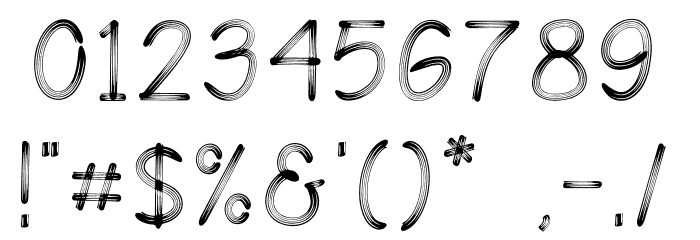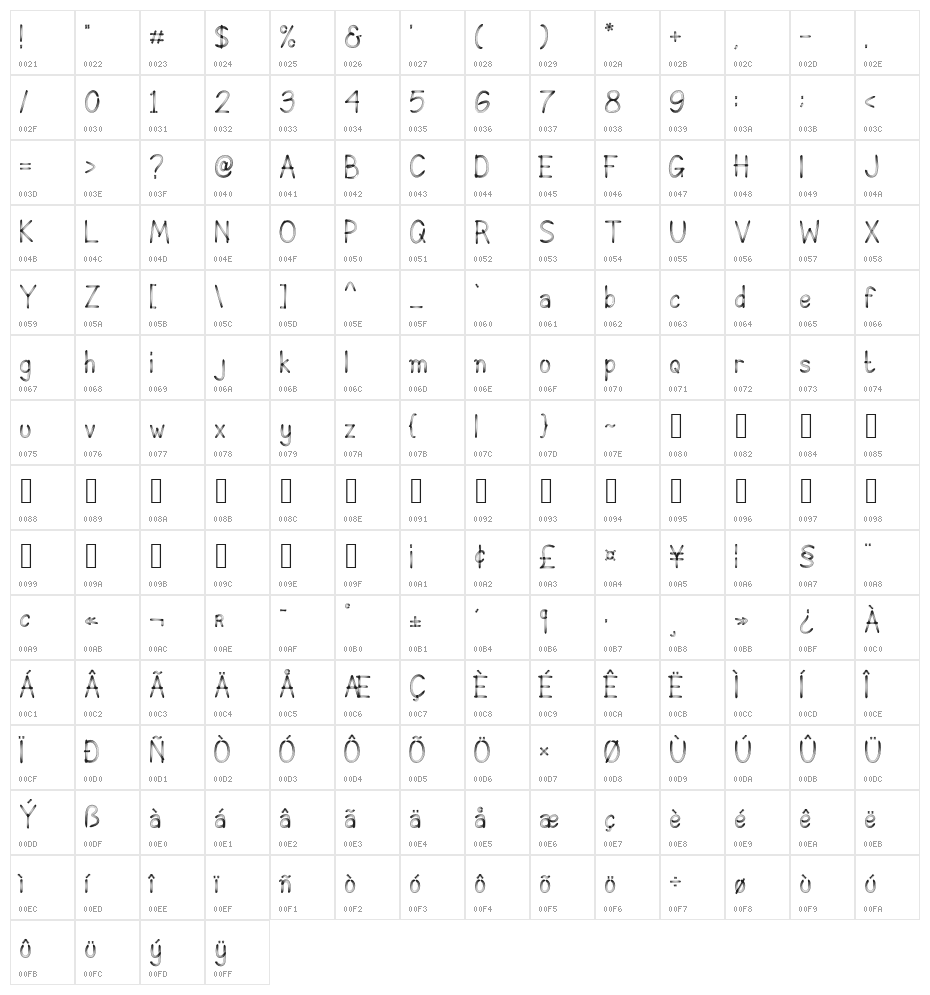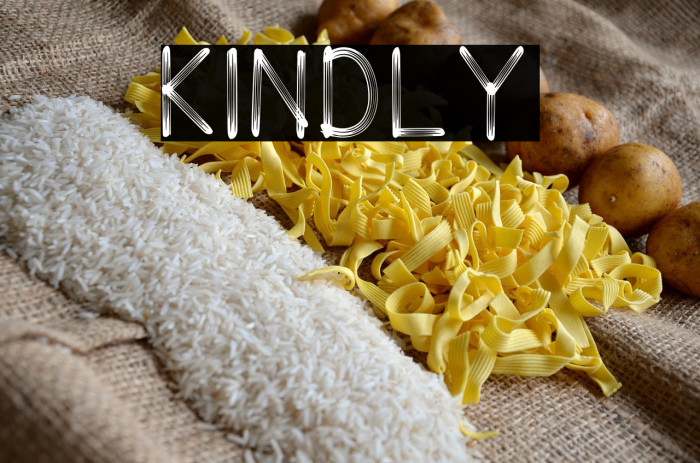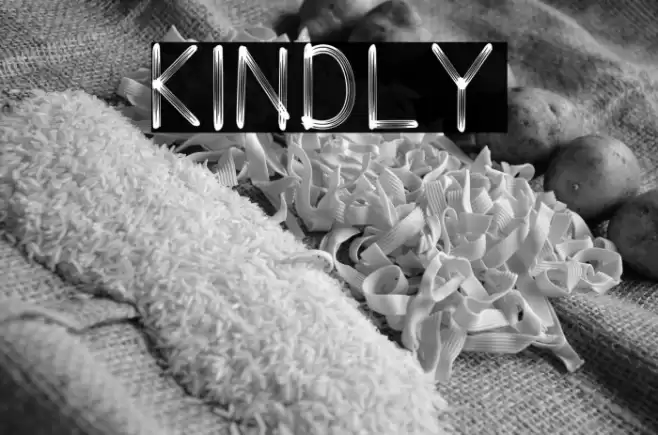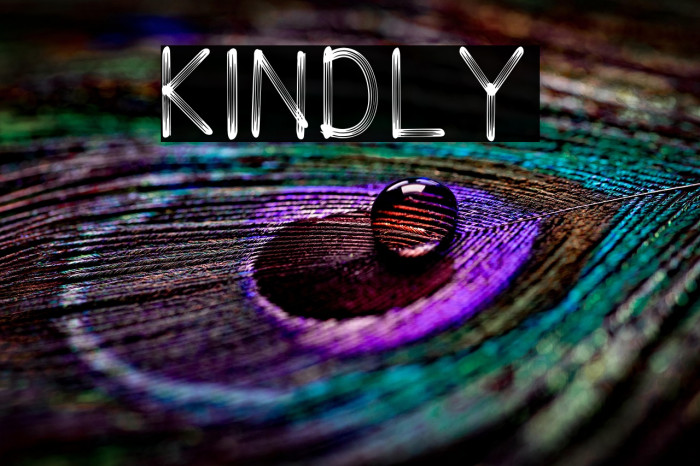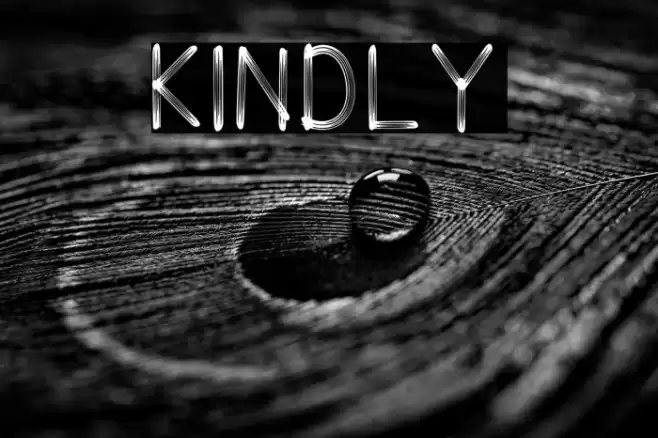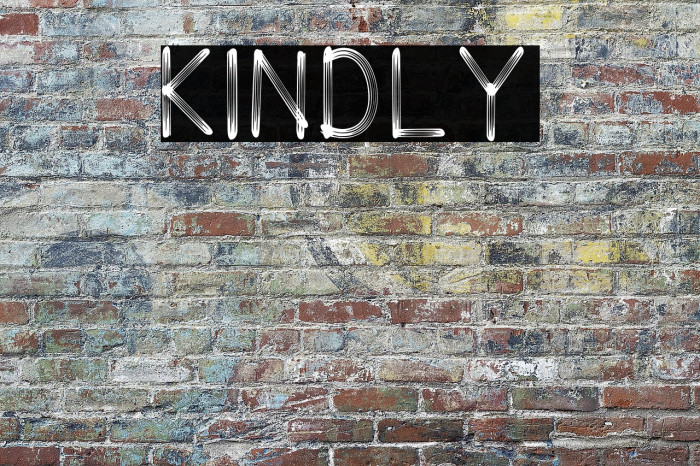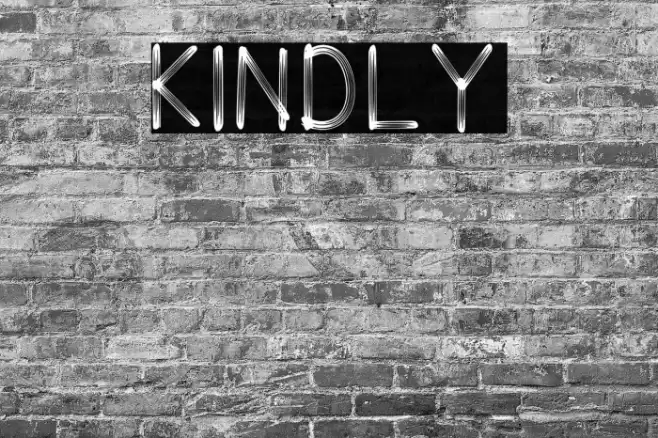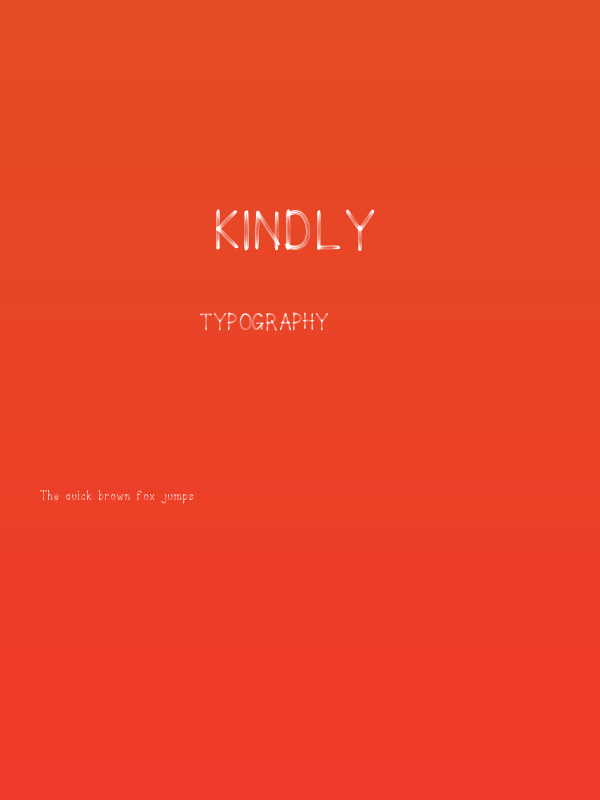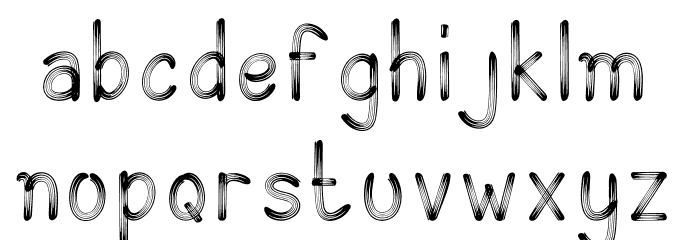
KINDLY Font
KINDLY Description
This font features a unique, hand-drawn style with a playful and artistic flair. Each character is composed of multiple overlapping lines, creating a sketch-like appearance that adds depth and texture. The letters are slightly irregular, enhancing the casual and informal feel. The font maintains a consistent stroke width throughout, with rounded edges that soften the overall look. It includes a full set of uppercase and lowercase letters, numbers, and a variety of special characters, making it versatile for creative projects.
| Use Case | Headlines, Logos, Artistic projects |
| Proposed Projects | Ideal for creative projects such as children's books, greeting cards, posters, and artistic branding. |